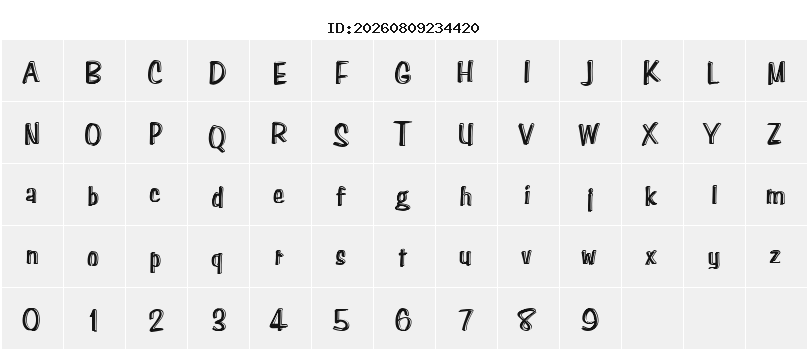
Paghetti Preview
• Font Name: Paghetti
• Full Font Name: Paghetti
About Paghetti.ttf
Paghetti.ttf is a modern, elegant sans-serif font designed for ultimate readability and visual harmony. Perfect for branding, headlines, web design, and print materials.